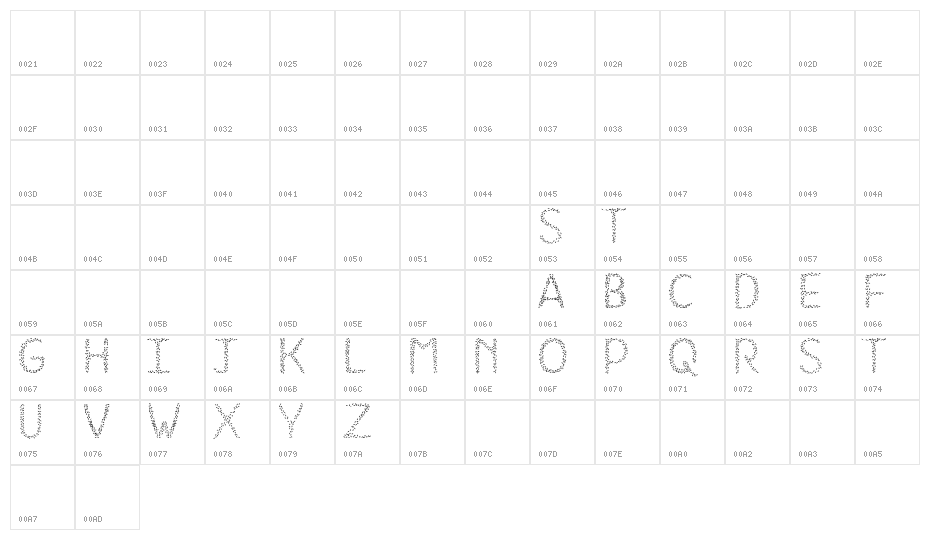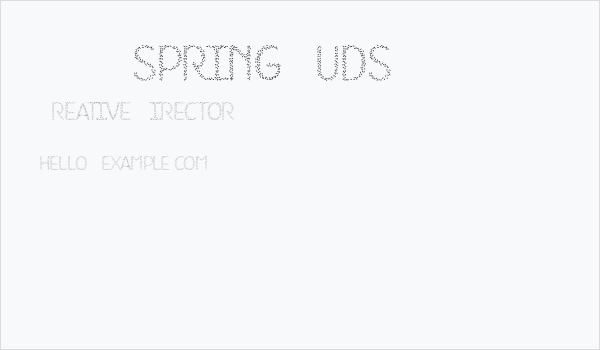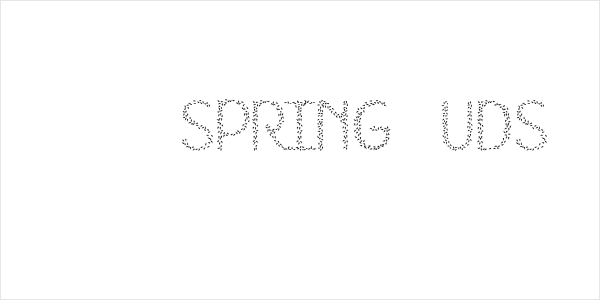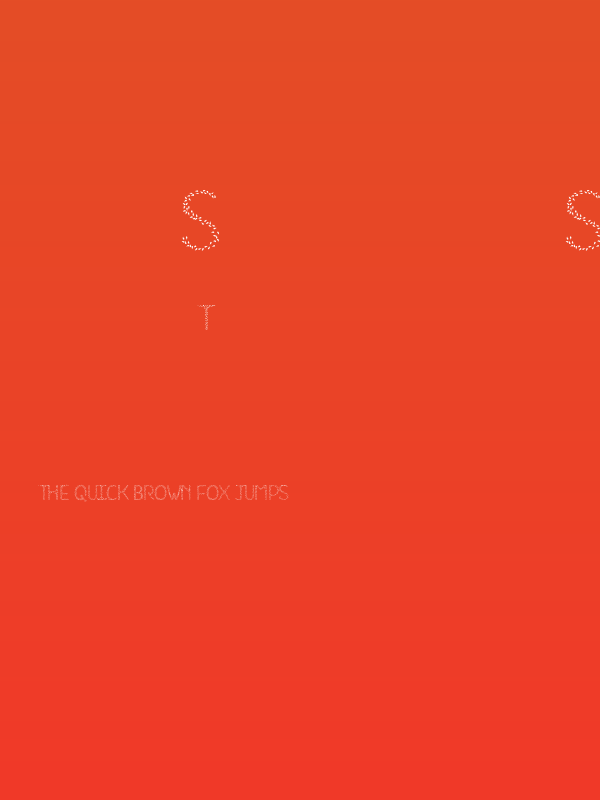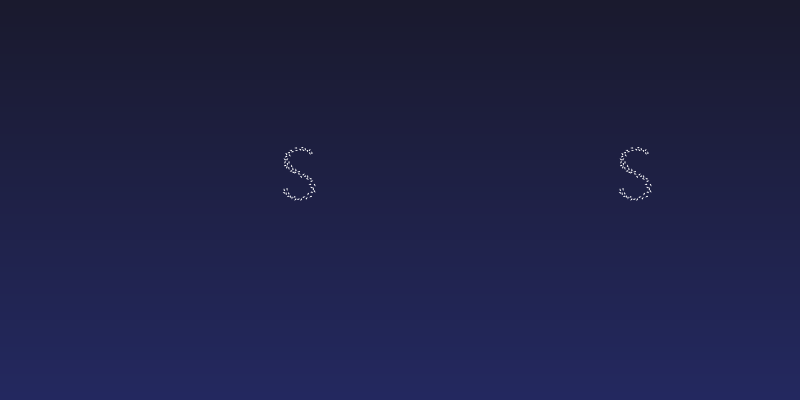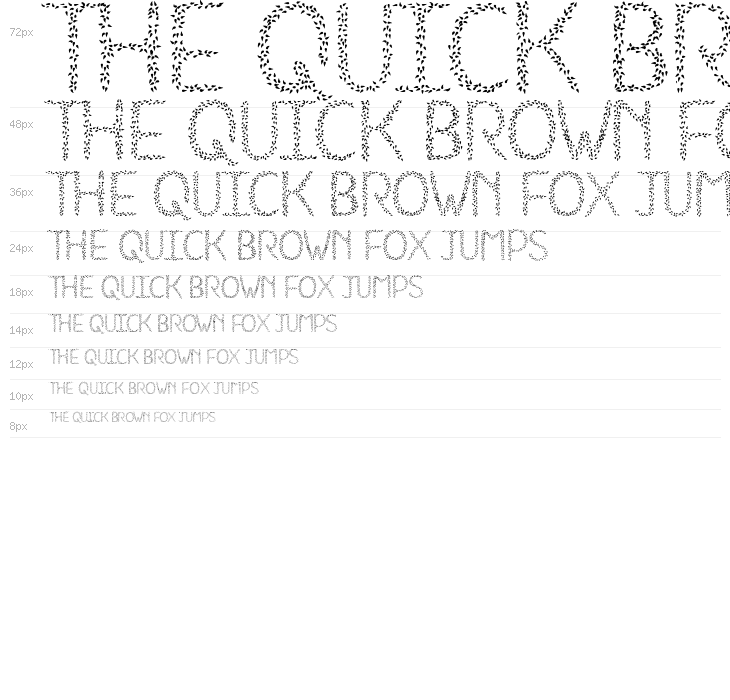
HKH Spring Buds Font
HKH Spring Buds Description
This font features a playful and organic design, with each character composed of small, leaf-like elements that create a textured and lively appearance. The letters are uppercase and maintain a consistent height, giving a uniform look despite the intricate detailing. The style evokes a sense of nature and growth, making it ideal for projects that aim to convey freshness and vitality. The unique composition of the characters adds a decorative touch, making it stand out in any design context. The font's structure is clear and legible, ensuring readability while maintaining its artistic flair.
| Use Case | Logos, Headlines |
| Proposed Projects | Ideal for eco-friendly branding, garden-themed invitations, or spring event posters. |